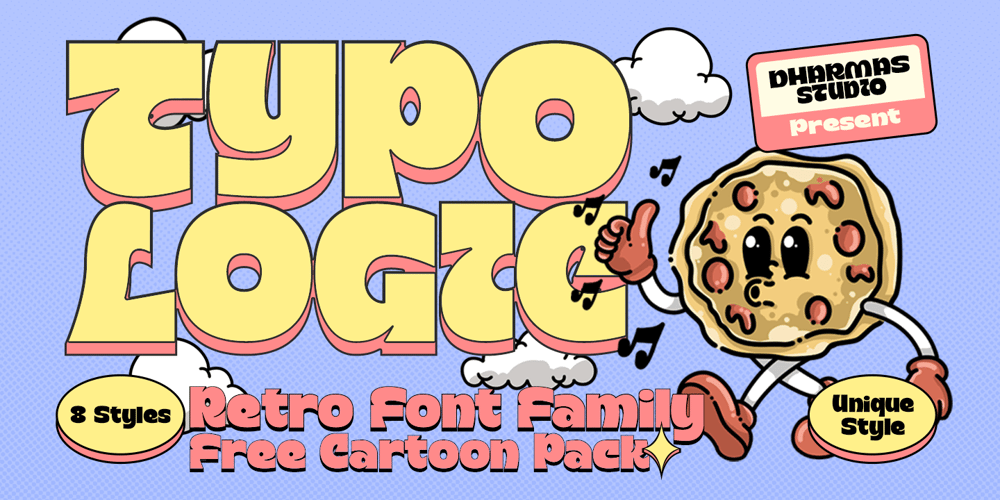
Typologic
Typologic font
Typologic Font Family was designed by Ahmad Jamaludin and published by Ahmad Jamaludin. Typologic contains 8 styles and family package options. Introducing Typologic, a font that effortlessly fuses geometric simplicity with the vibrant pop culture styles of the swinging 60s and 70s.This versatile typeface offers not just one, but 8 distinct font families, each with its own unique character. You’ll find Condensed, Normal, Semi Expanded, and stylish shadow versions.But that’s not all—when you choose Typologic, you also get a treasure trove of 56 FREE BONUS ASSETS, featuring retro mascot illustrations that perfectly complement your creative projects.Features: Typologic Main FIle 56 free bonus assets that are Retro Mascot Illustrations Has 8 fonts : Condensed, Normal, Semi Expanded, Condensed Shadow, Normal Shadow, Semi Expanded Shadow, Expanded Shadow Instructions (Access special characters, even in Cricut Design) Unique Letterforms Works on PC & Mac Simple Installations Accessible in Adobe Illustrator, Adobe Photoshop, Microsoft Word even Canva! PUA Encoded Characters. Fully accessible without additional design software. Come and say hello over on Instagram!Thank you,Dharmas Studio